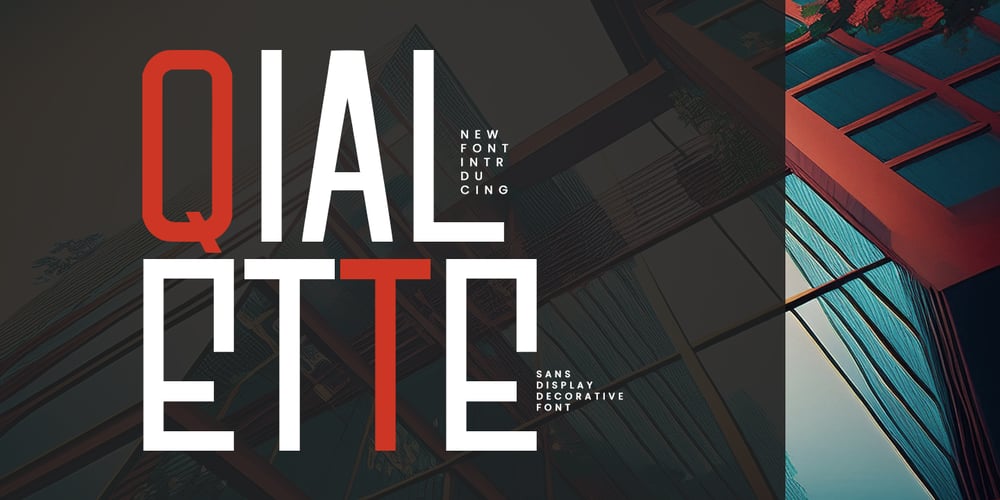
MC Qialette Font Family was designed by Gilang Maulana and published by Maulana Creative. MC Qialette contains 1 styles and family package options. Qialette is a sans display decorative all caps font. With relax character, sharp stroke and looks fun to give you an extra creative work. Qialette font support multilingual more than 100+ language. This font is good for logo design, Social media, Movie Titles, Books Titles, a short text even a long text letter and good for your secondary text font with sans or serif. Make a stunning work with Qialette font.Cheers, Maulana Creative